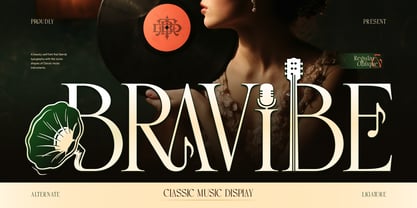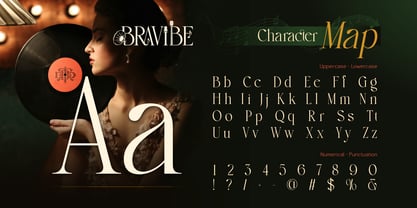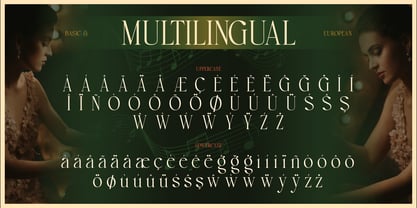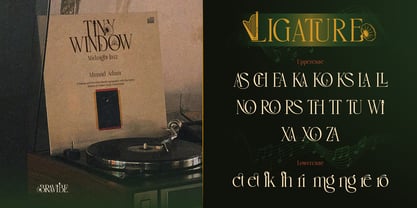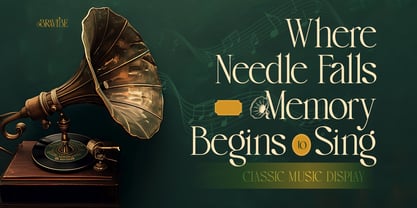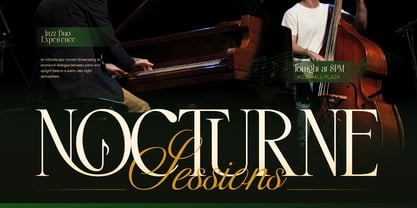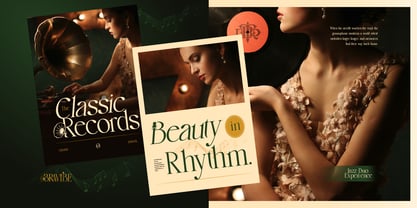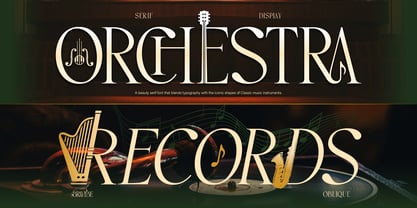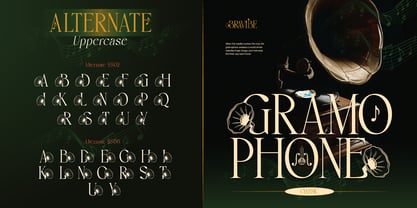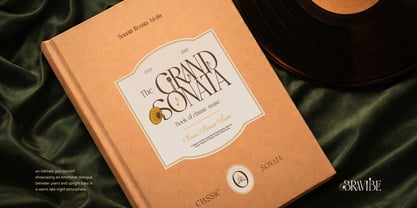
Bravibe
by Burntilldead
The Bravibe Font Family was designed by Eric Kurniawan and published by Burntilldead. Bravibe contains 2 styles and family package options. More about this family
Imagine a dimly lit jazz bar, the soft glow of golden lights, and the smooth sound of a saxophone filling the air. That timeless atmosphere is exactly what this font brings into your design. Introducing Bravibe, a sophisticated serif display font inspired by the beauty of classic music instruments and the soulful essence of jazz. Every letter is crafted with unique artistic details, featuring subtle elements like saxophones, harps, and musical notes, creating a harmonious blend between typography and rhythm. Bravibe is designed to stand out. Its elegant curves and high-contrast strokes give a luxurious and editorial feel, while the decorative touches add personality and storytelling to every word. Perfect for: Music event posters & jazz festival branding, Luxury logos & high-end branding, Editorial layouts & magazine covers, Album artwork & vintage-inspired designs, Wedding invitations & classy packaging Features: A - Z set (Uppercase & Lowercase), Number, Punctuation, Alternates, Ligatures, Multilingual